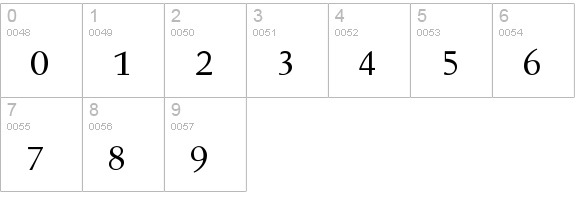
Beln-SmallCaps Font Details
Beln-SmallCaps is a sophisticated and elegant font that exudes a sense of timeless charm and classic appeal. With its delicate small caps design, this font is perfect for adding a touch of refinement to any project. The sleek lines and subtle curves of Beln-SmallCaps create a sense of sophistication and style that is sure to elevate your designs to the next level. Best of all, Beln-SmallCaps is available for free download at FontsMarket.com. This means that you can easily incorporate this stunning font into your projects without breaking the bank. Whether you're working on a branding project, a wedding invitation, or a logo design, Beln-SmallCaps is the perfect choice for adding a touch of elegance and class. Download Beln-SmallCaps today and bring a touch of sophistication to your designs.